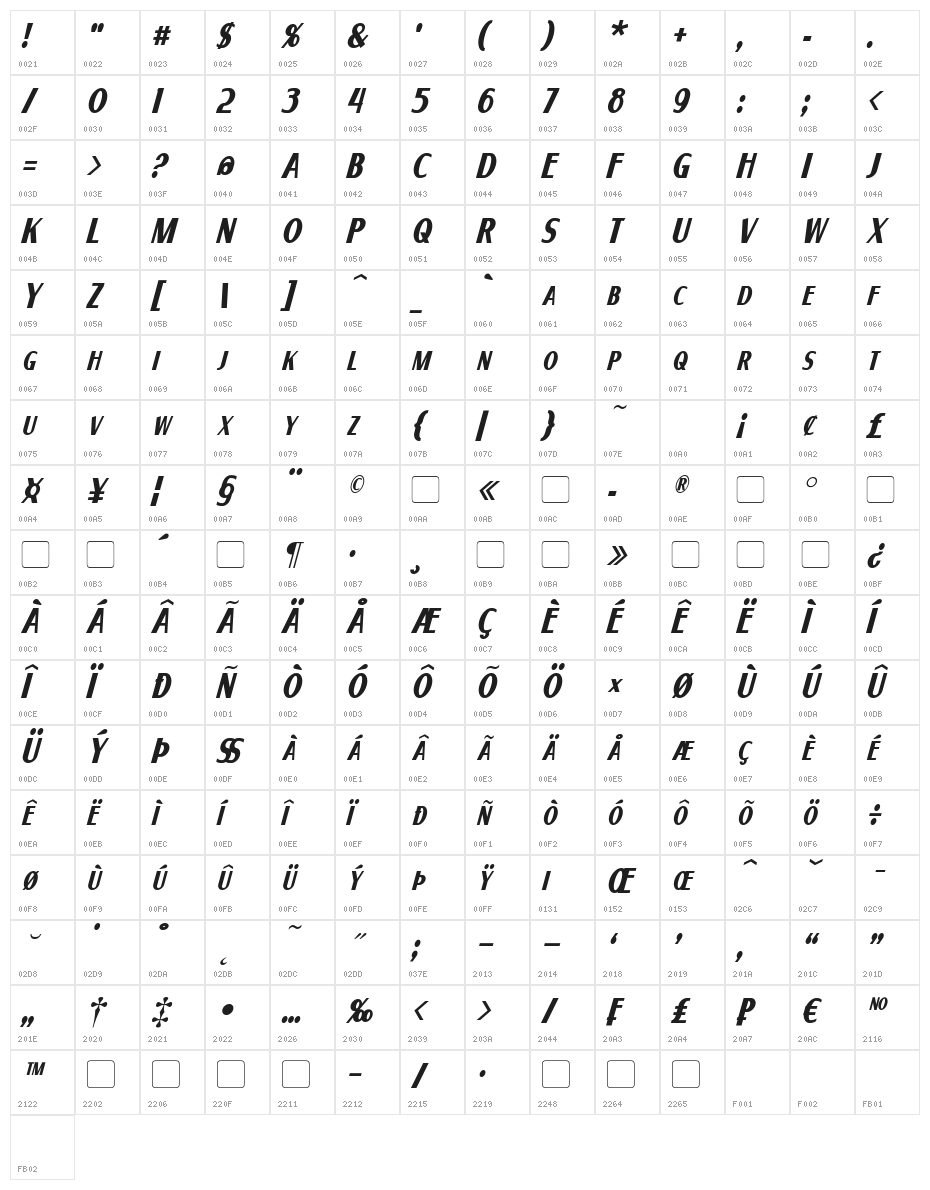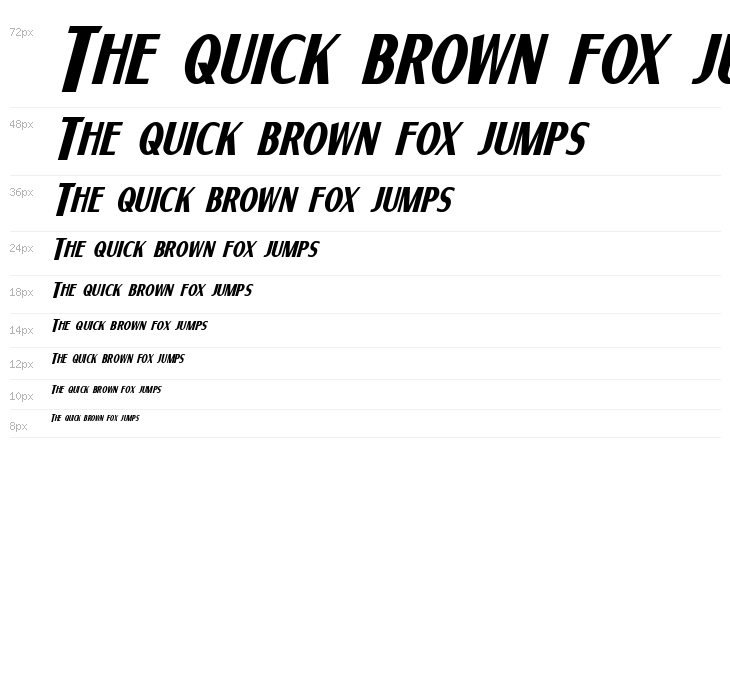
Ponsonby Italic Font
Ponsonby Italic Description
This font features a dynamic and energetic italic style, characterized by its forward-leaning posture and sharp, clean lines. The uppercase and lowercase letters maintain a consistent slant, adding a sense of motion and urgency. The numerals are bold and clear, ensuring readability even at smaller sizes. Special characters are well-defined, complementing the overall aesthetic. This font's modern appeal is enhanced by its sleek and streamlined design, making it suitable for a variety of applications where a contemporary and assertive look is desired.
| Use Case | Headlines, Logos, Advertising |
| Proposed Projects | Ideal for branding, advertising, headlines, and any project requiring a modern and energetic typeface. |